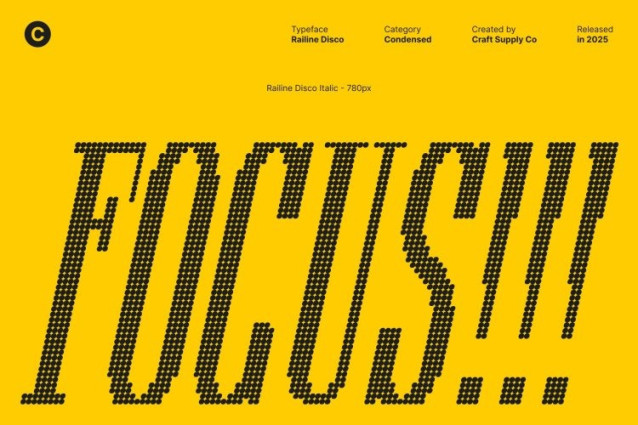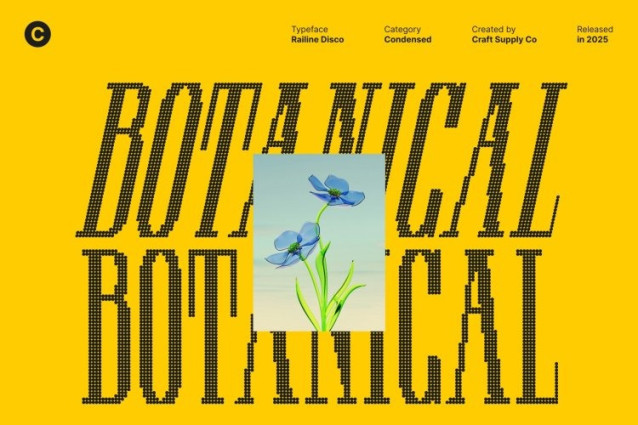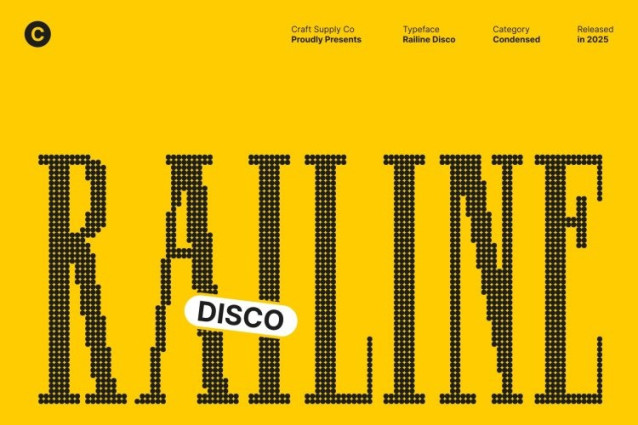
Railine Disco Font
Railine Disco Font This is a refined condensed serif font designed to combine readability with striking visual presence. Its clean, structured letterforms deliver elegance and sophistication, making it perfect for headlines, posters, or any project that requires a bold yet stylish display.
Disco Shimmer for Glamorous Flair
Enhanced with a disco shimmer effect, this font brings sparkle and dynamic energy to every character. The subtle shimmer adds visual rhythm and glamour, transforming the font into a stylish, eye-catching choice for modern creative projects that need both elegance and flair.
Perfect for Modern Branding and Beauty Design
This font excels in applications where sophistication and visual impact matter. It is ideal for luxury branding, beauty packaging, editorial layouts, invitations, and high-end marketing materials, giving your designs a polished and contemporary look that stands out.
Versatile Typeface for Bold and Stylish Projects
By merging condensed serif forms with disco shimmer, this font provides a versatile typeface that balances elegance, readability, and flair. Its bold yet stylish presence makes it a perfect choice for designers looking to create striking, glamorous, and modern typographic designs.